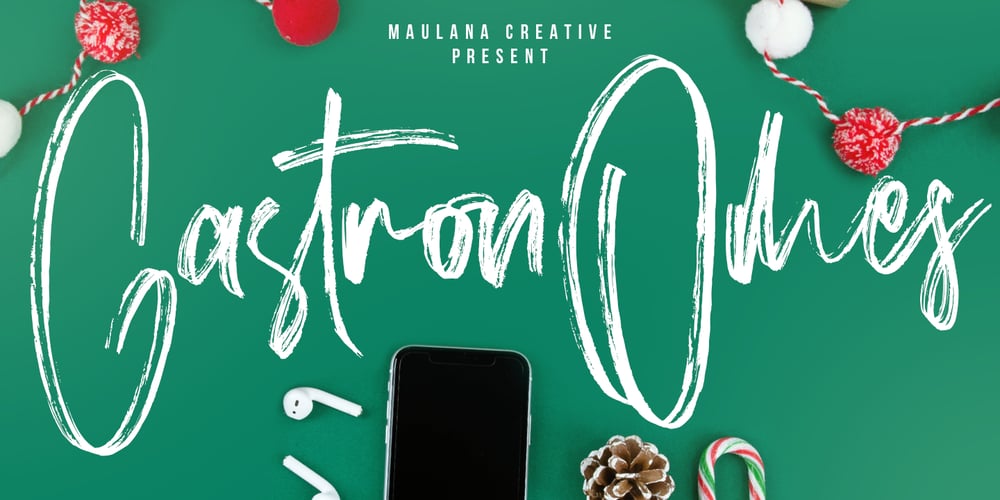
Gastronomes Font Family was designed by Gilang Maulana and published by Maulana Creative. Gastronomes contains 1 styles and family package options. Give your designs an authentic brush handcrafted feel. “Gastronomes” is perfectly suited to signature, stationery, logo, typography quotes, magazine or book cover, website header, flyer, clothing, branding, packaging design and more.